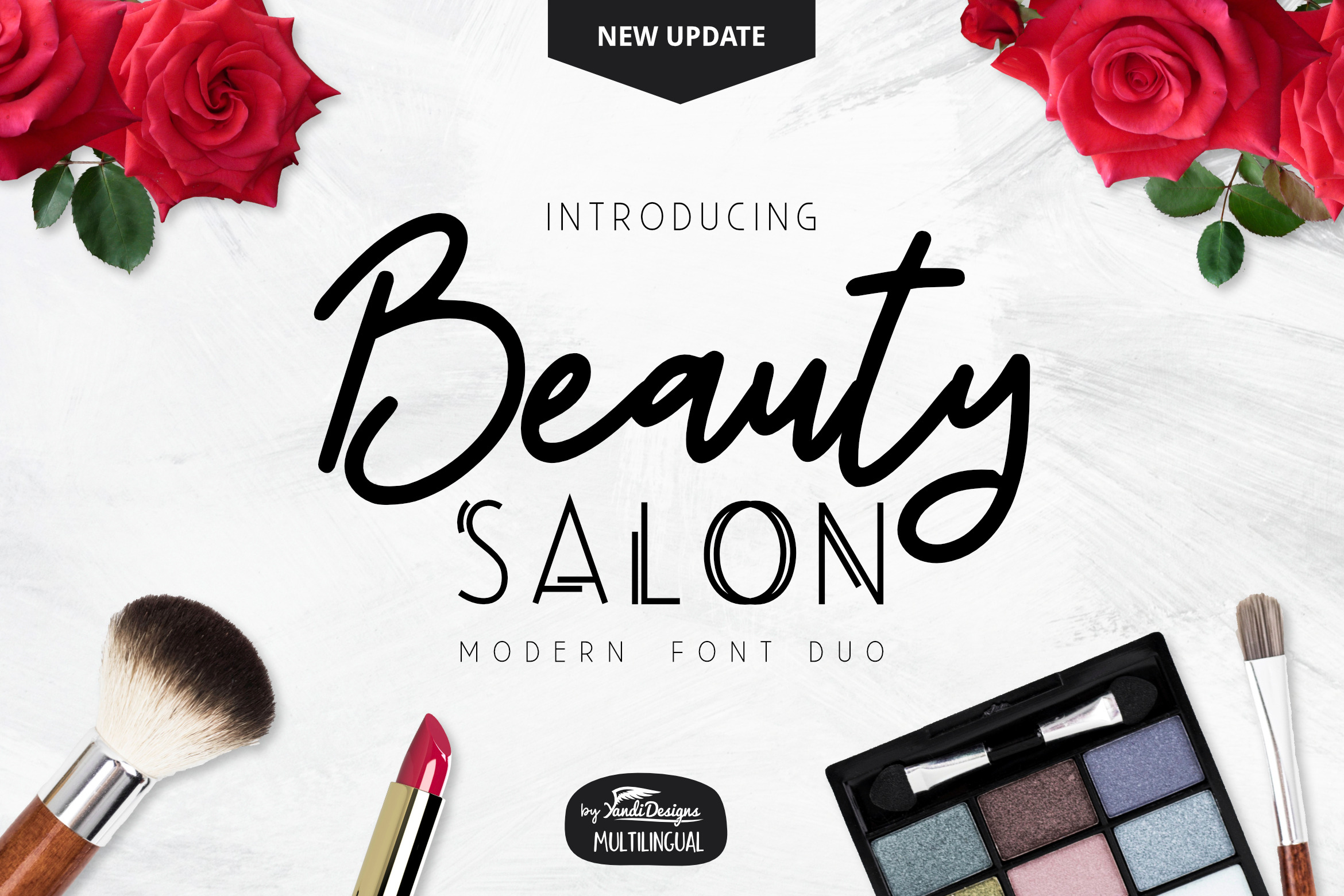
Beauty Salon Modern Font Duo
Beauty Salon Font Duo
Modern and elegant multipurpose font , suitable for many project children book, quotes, logo , heading , title etc.
What a fabulous design! Beauty Salon Sans is a sophisticated, very modern, casual font that's beautiful to look at and easy to read in all-caps. The Uppercase design is subtle but makes a statement. The script is 100% different in weight and style and makes a wonderful counterpoint. Thumbs up for YandiDesign's excellent offering.